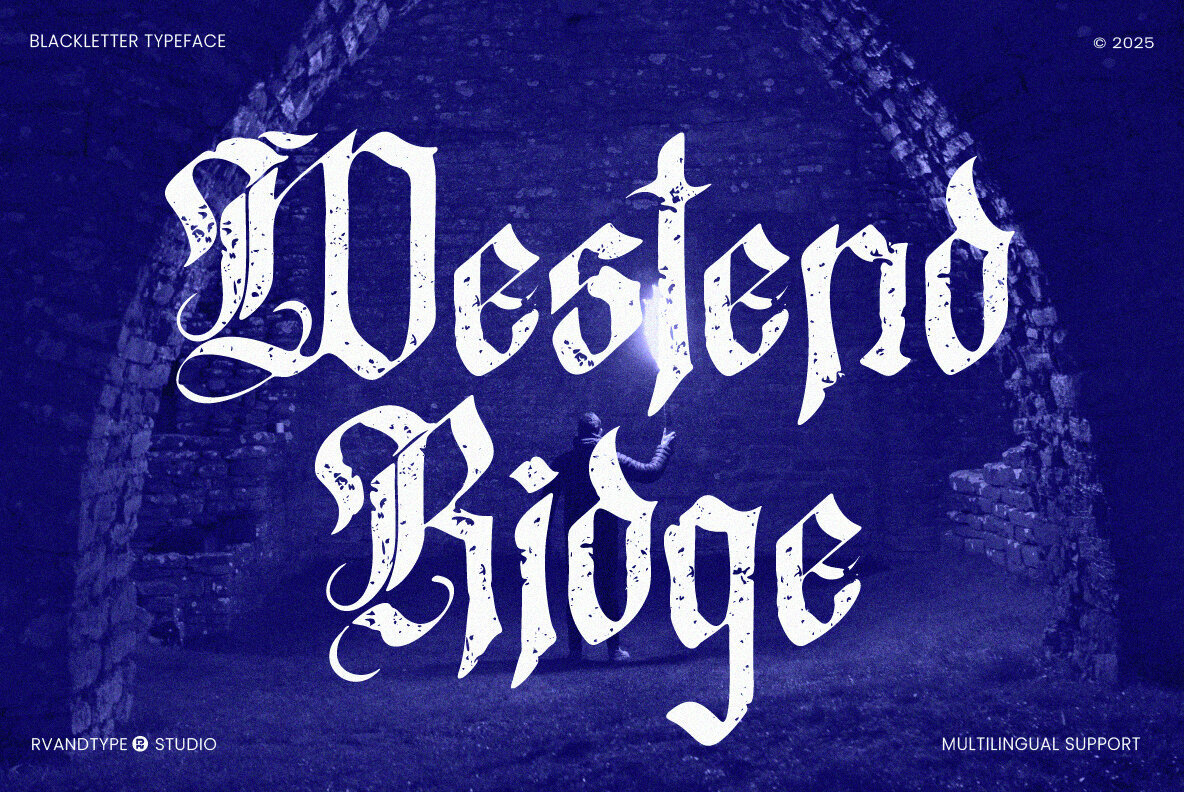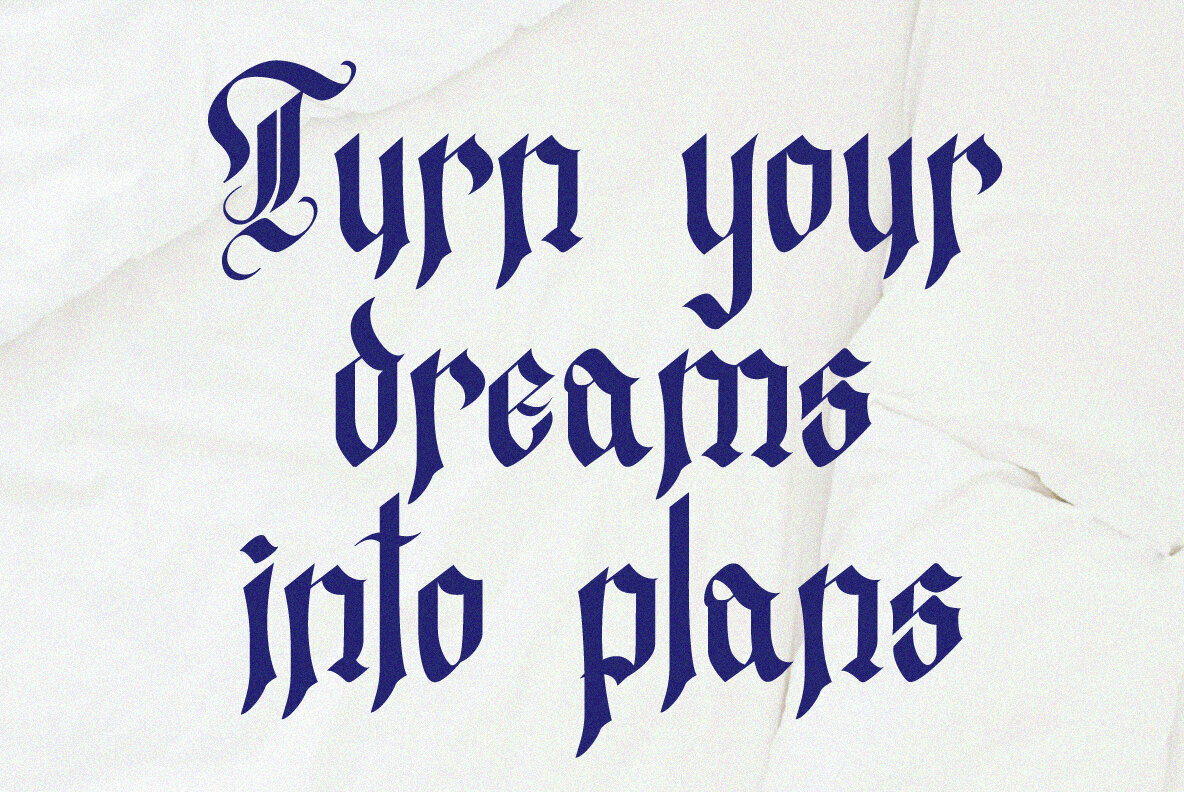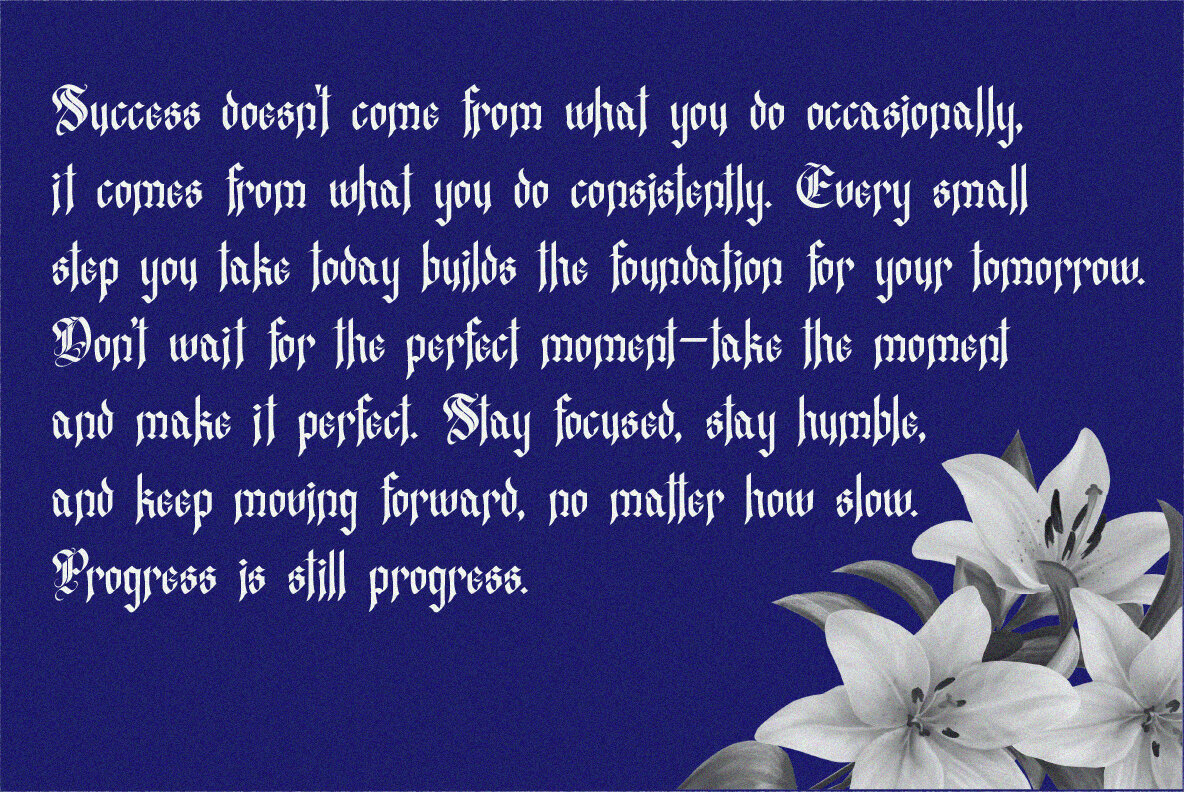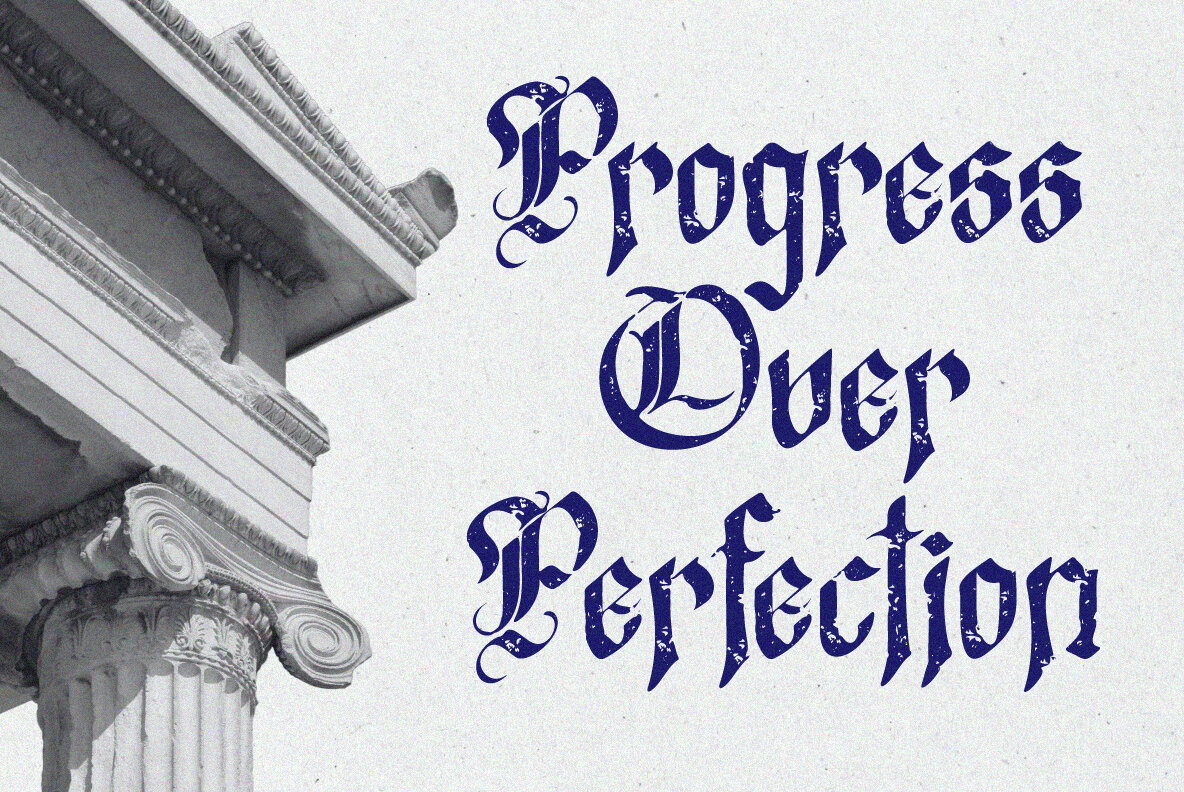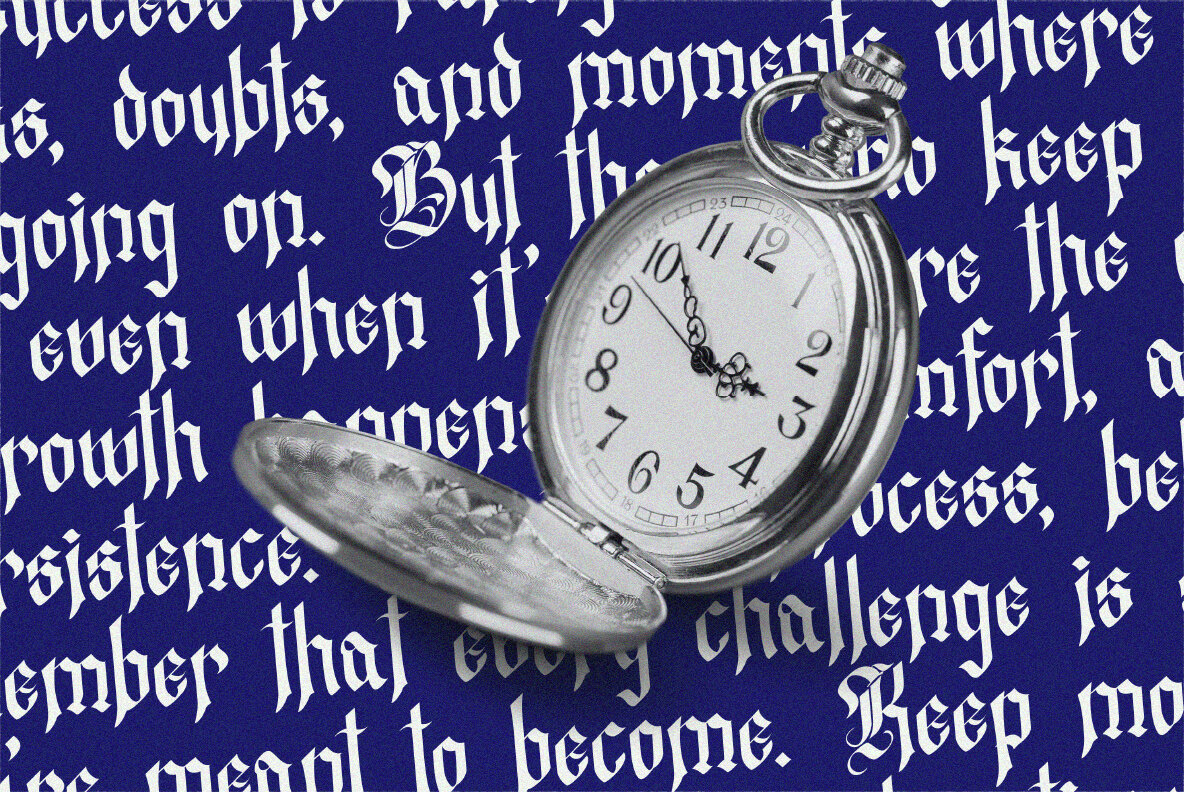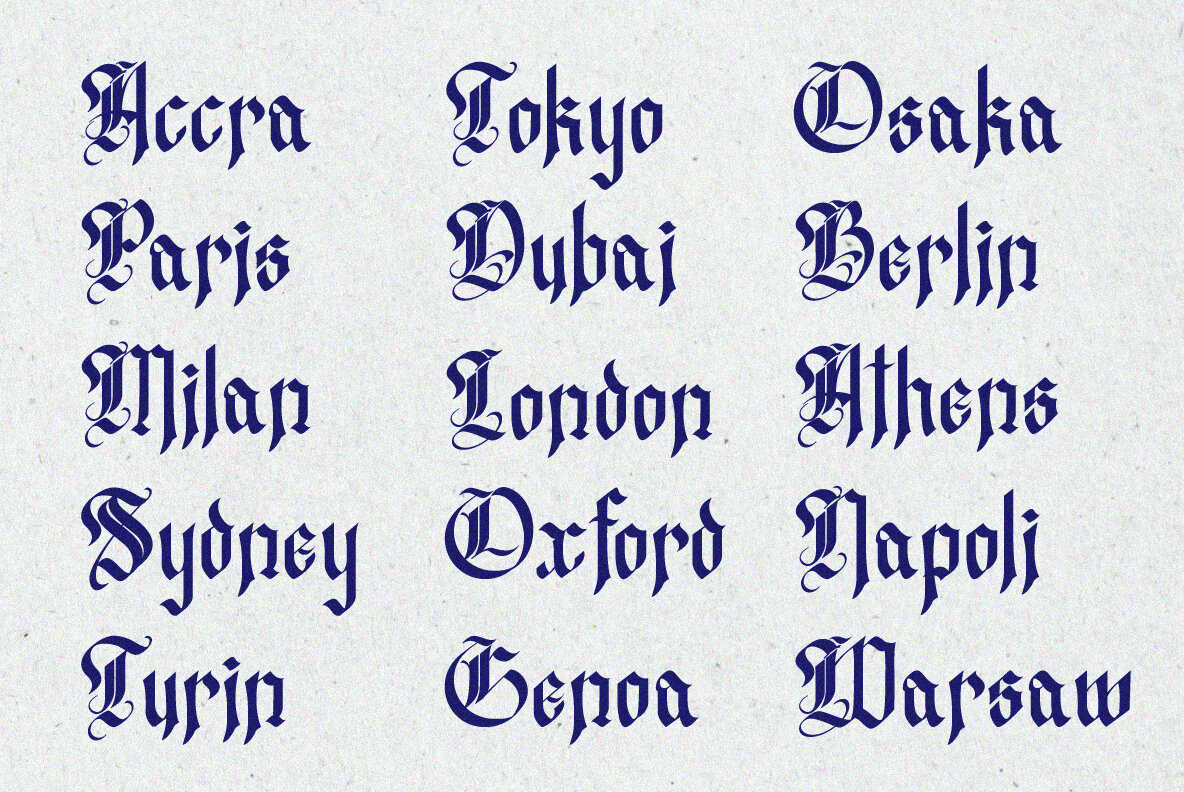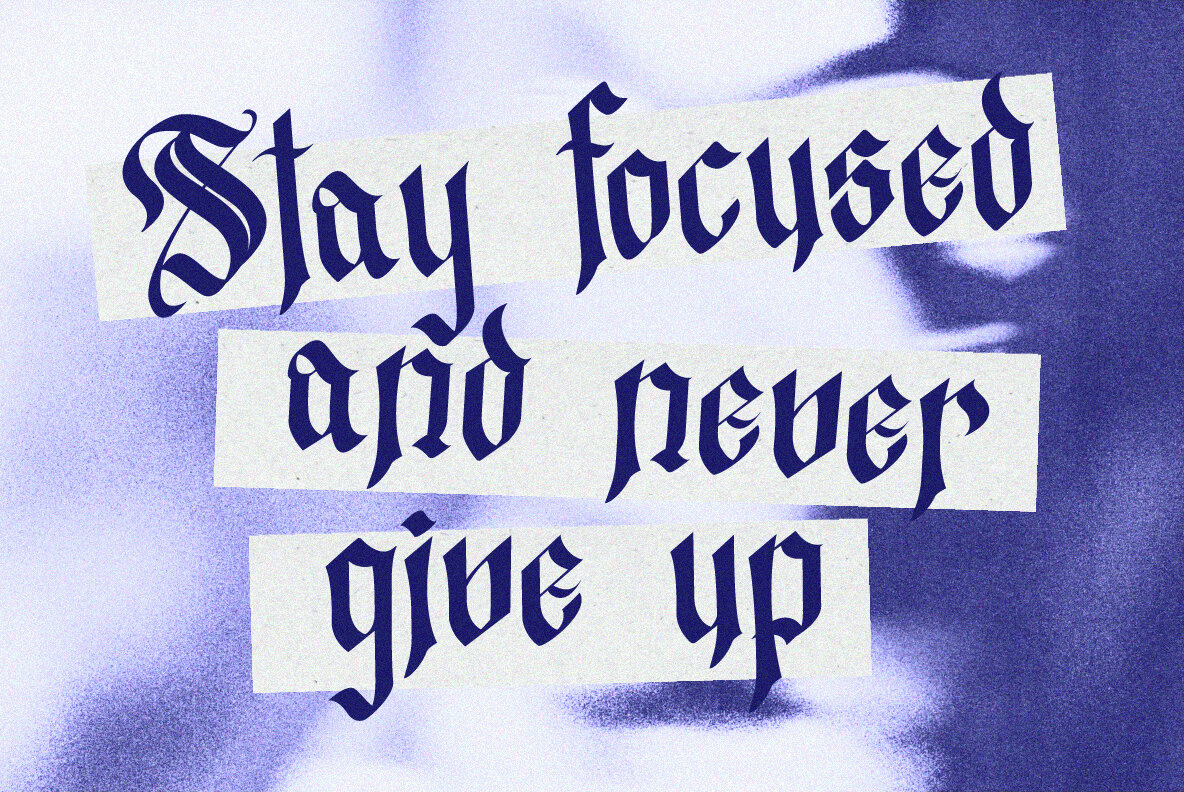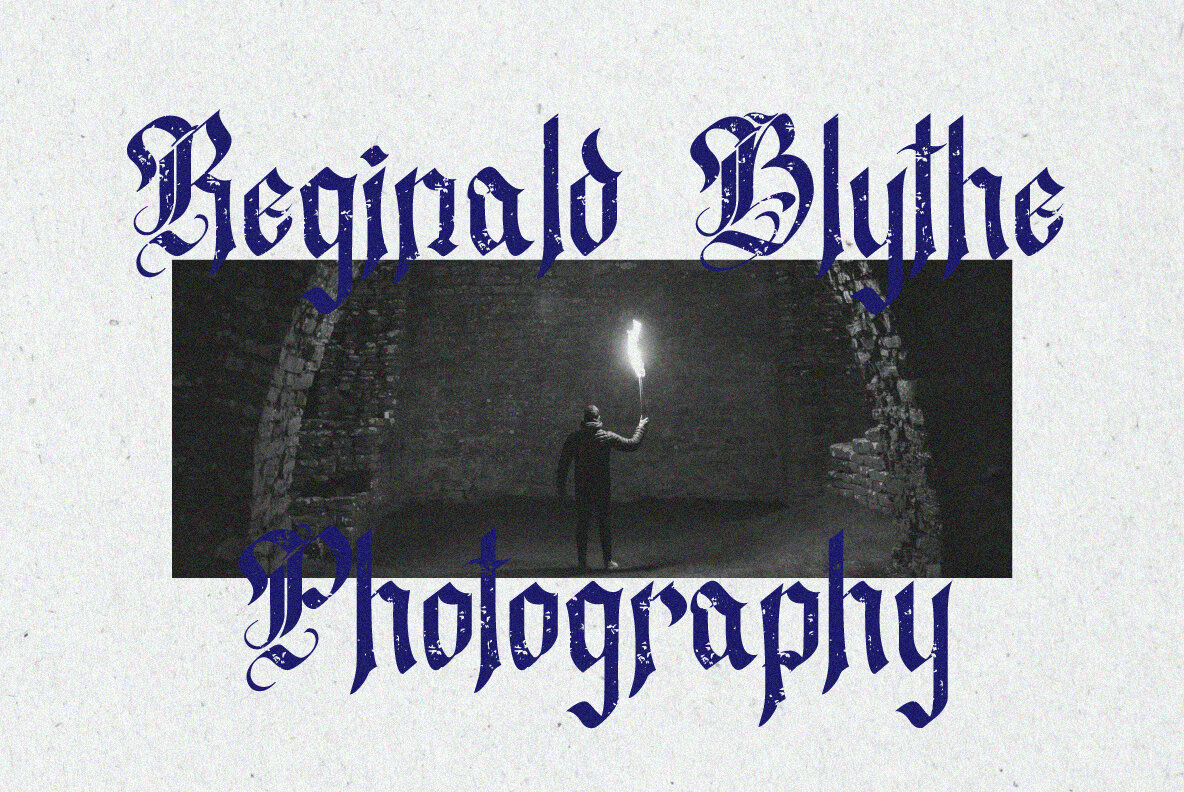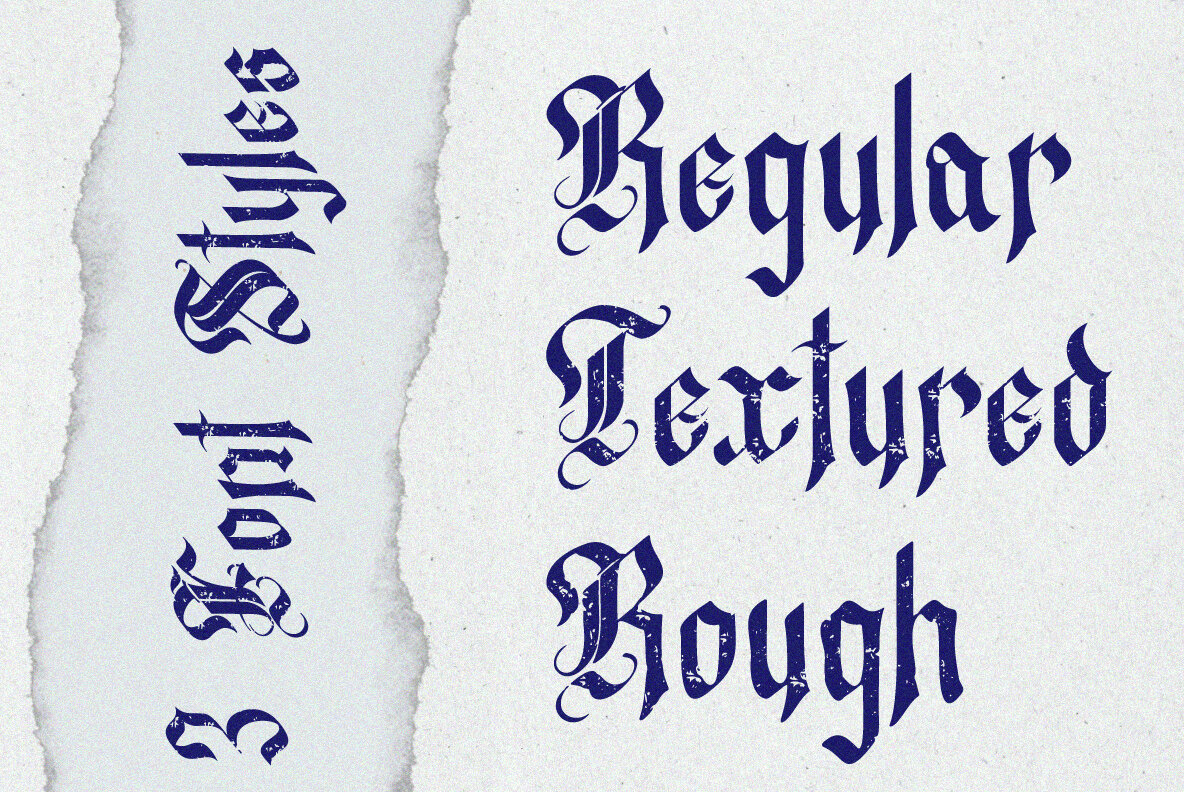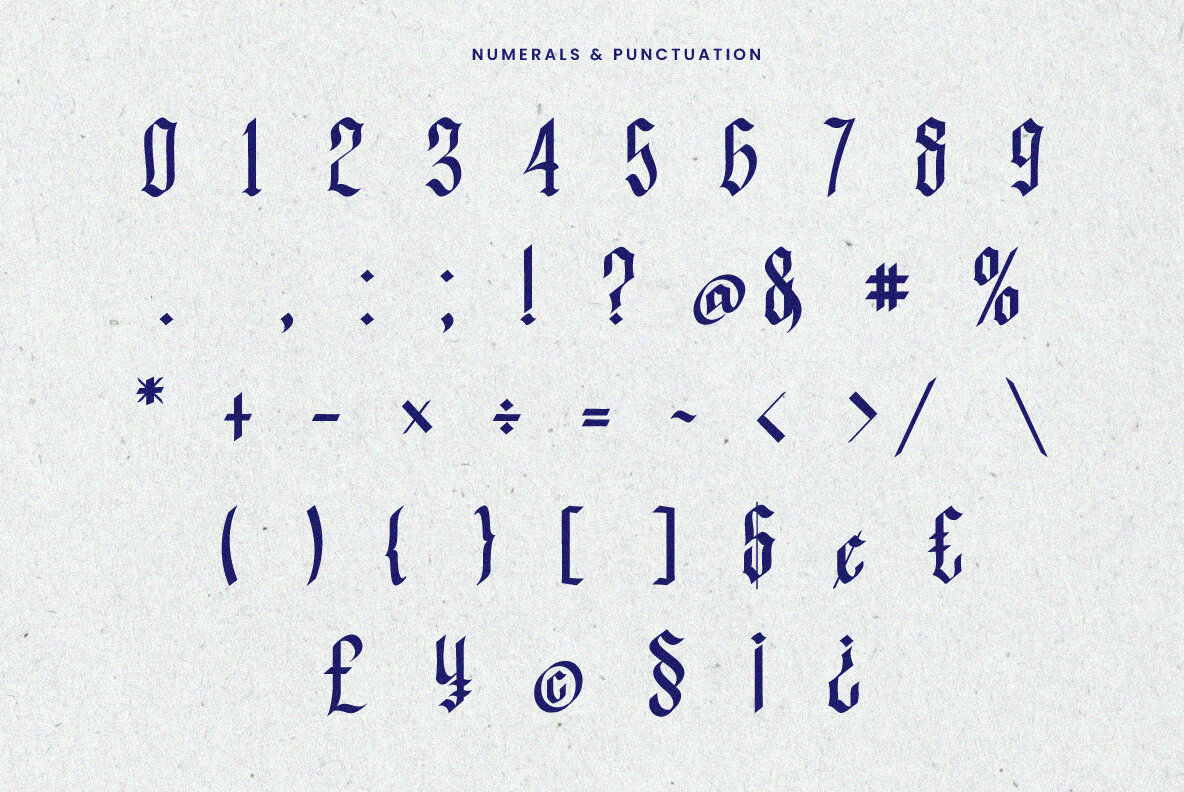
Westend Ridge Font
Westend Ridge is a captivating blackletter font inspired by the elegance of classic typography and the timeless charm of Old English design. Infused with sharp details, strong character, and vintage allure, this typeface brings a historical essence into contemporary design. Each letter echoes the spirit of medieval scripts and traditional signage while maintaining a fresh and modern feel. Ideal for designers seeking a bold visual statement, Westend Ridge expertly balances ornate textures with readability.Westend Ridge Blackletter Font